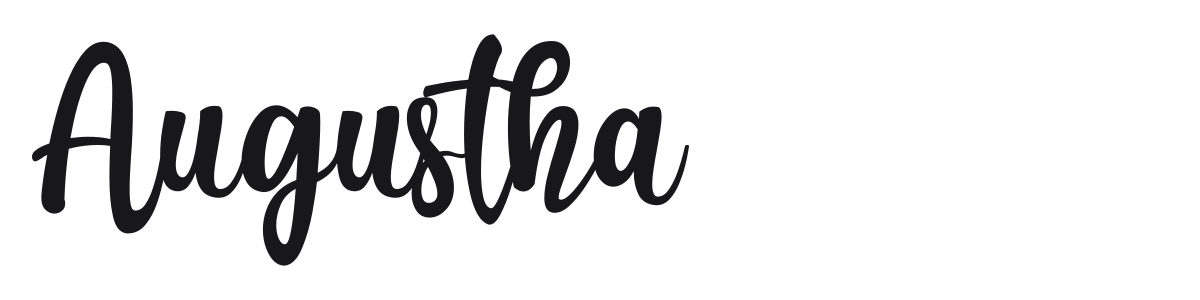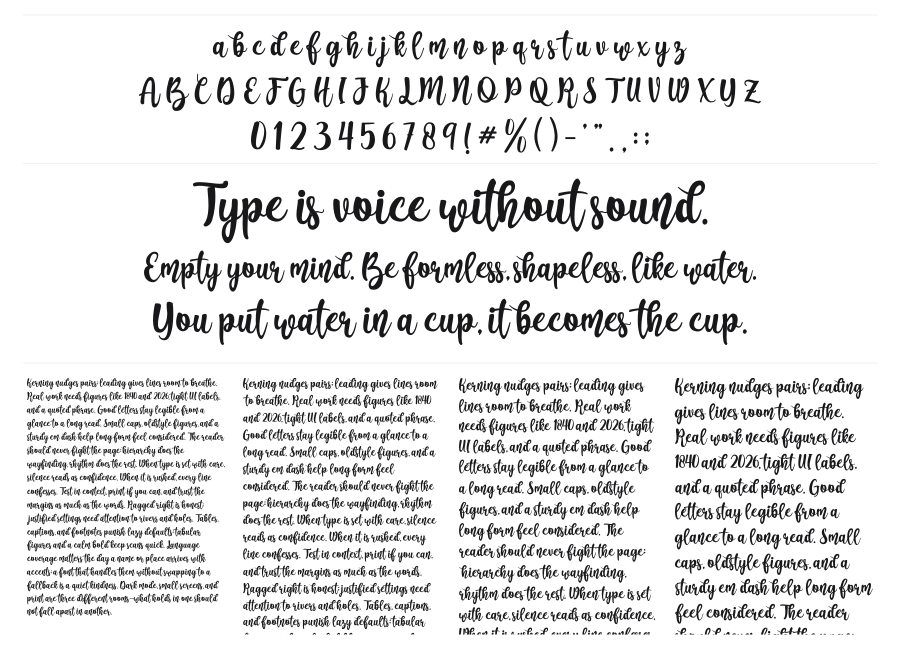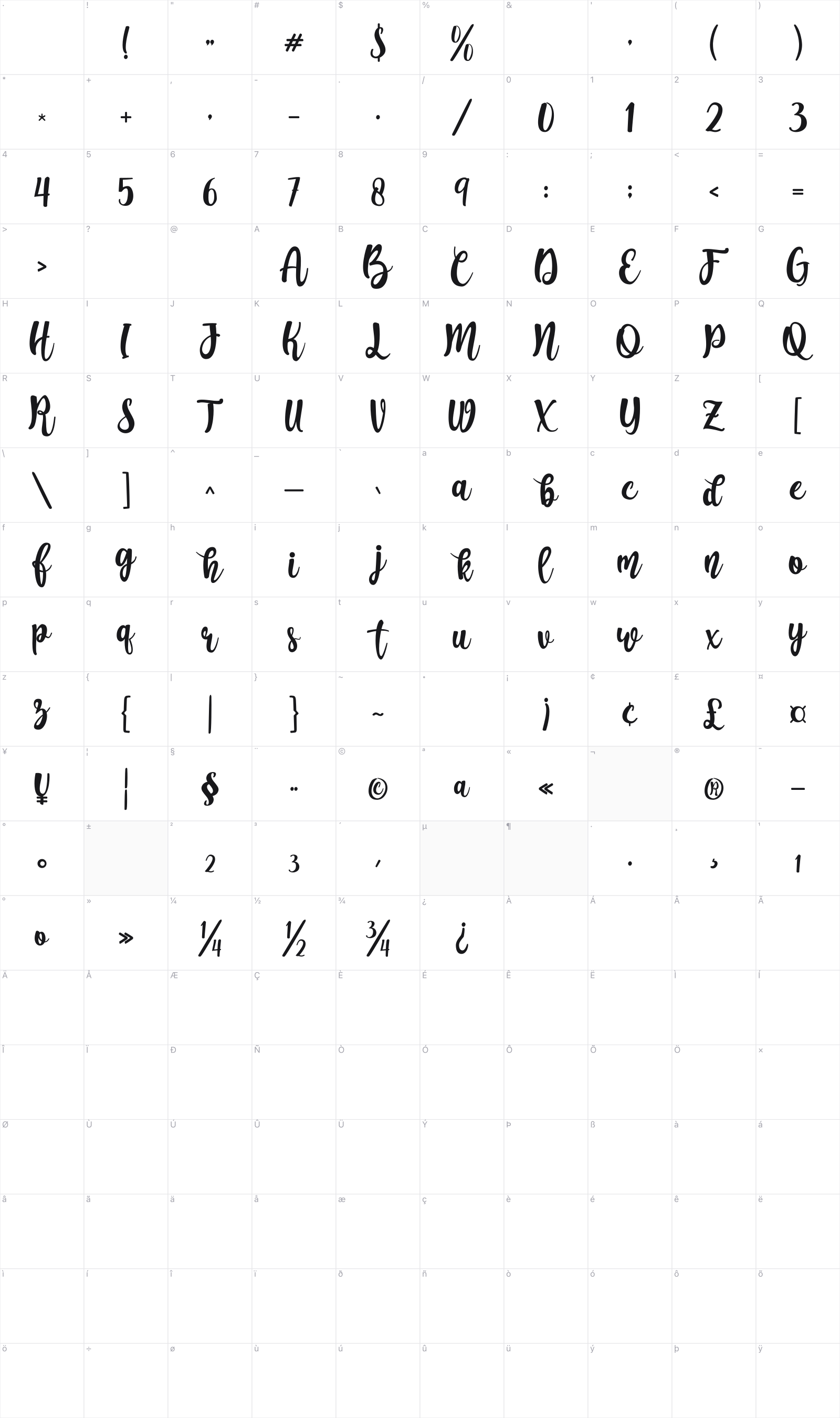
Augustha
by Figuree Studio
Augustha is a bold brush script with the confident rhythm of genuine hand-lettering. Thick downstrokes taper into thin hairlines, giving the design a natural pressure-and-release quality that keeps it feeling handmade rather than mechanical. It has the kind of warmth that works across branding, packaging, and editorial contexts where personality matters.